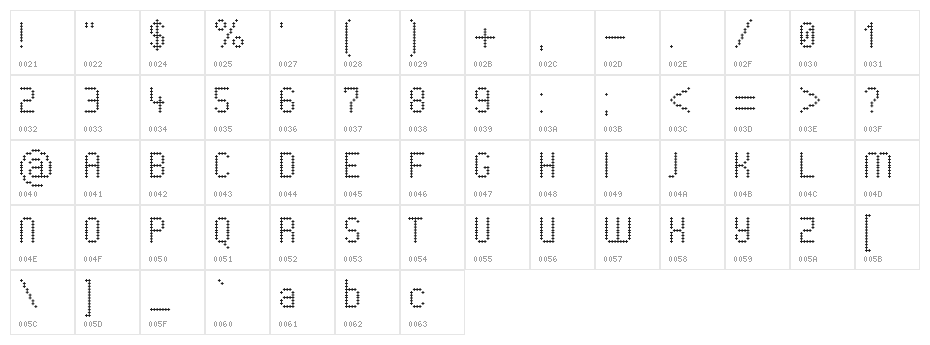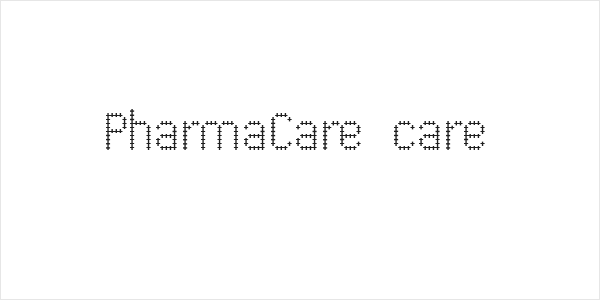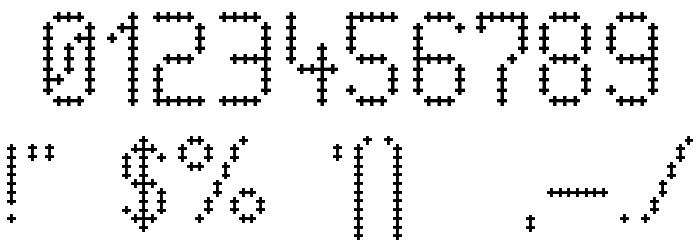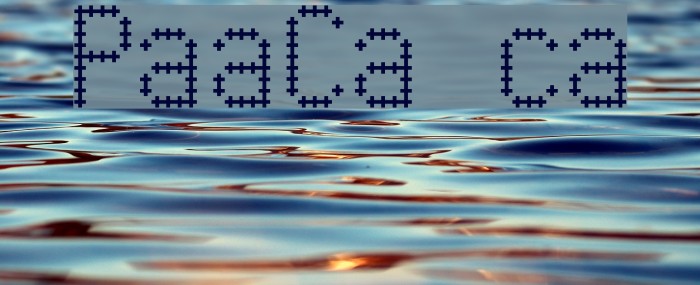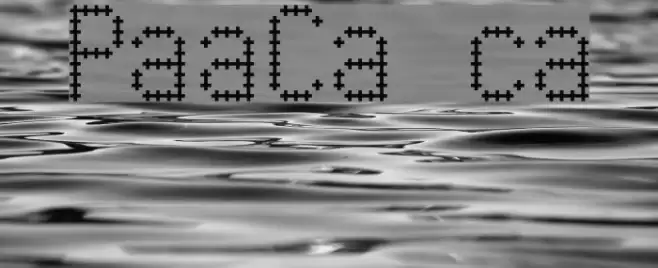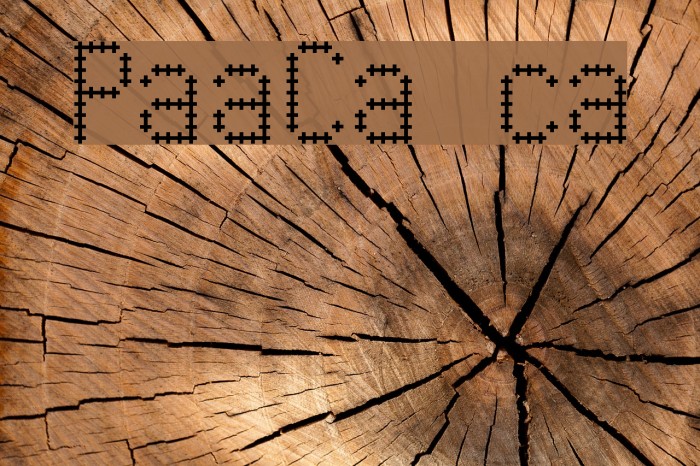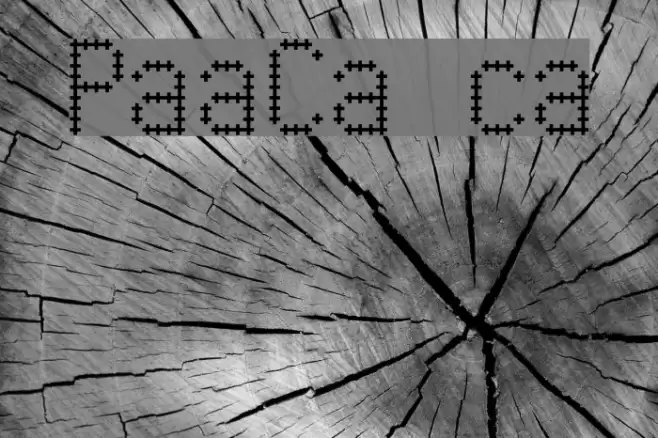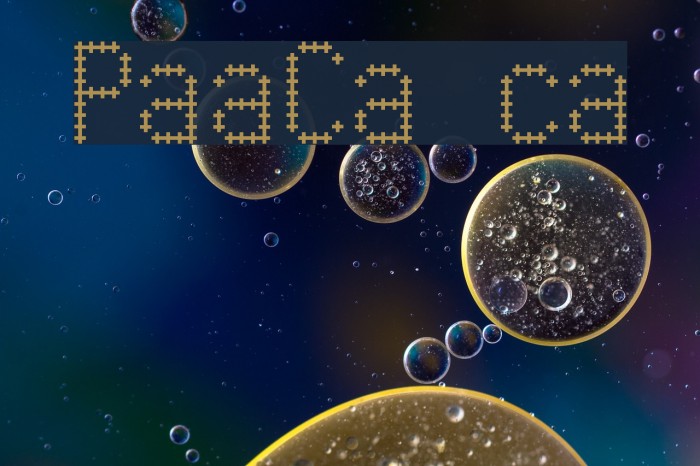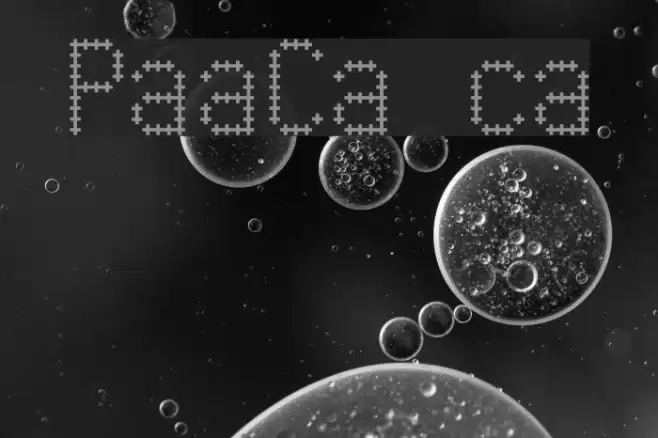
PharmaCare care Font
PharmaCare care Description
This font features a unique dot matrix style, reminiscent of early digital displays and typewriters. Each character is composed of a grid of dots, creating a pixelated effect that is both retro and modern. The uppercase and lowercase letters maintain a consistent height, while the numerals and special characters are designed to match the overall aesthetic. The font's geometric precision and uniformity make it ideal for projects that require a digital or technical feel. Its distinct appearance ensures readability while adding a touch of nostalgia.
| Overall Style | Retro, Digital |
| Use Case | Logos, Headlines, Digital Displays |
| Proposed Projects | Ideal for digital-themed designs, retro video game graphics, tech company branding, or any project seeking a vintage digital look. |